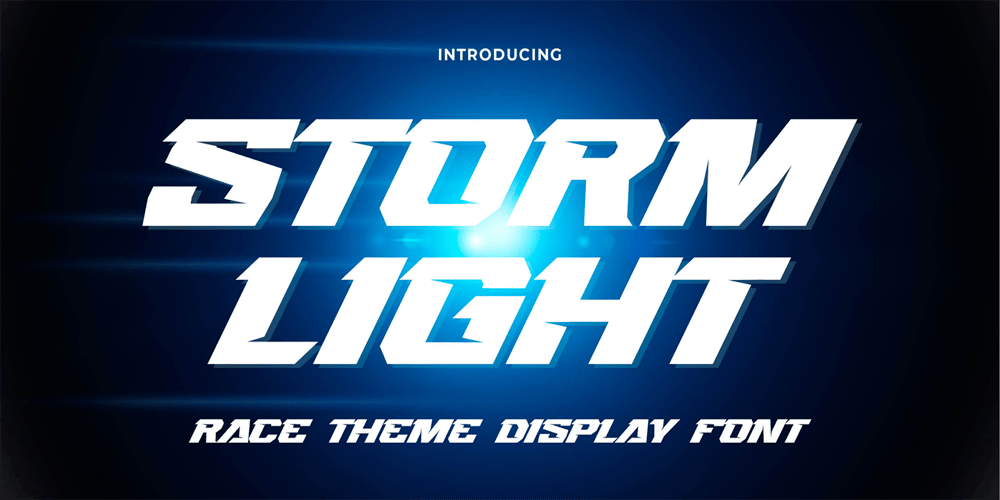
Stormlight Font Family was designed by Abdul Malik Wisnu, Anang Fibriyanto and published by Gassstype. Stormlight contains 1 styles and family package options. Here comes a New Font ,Introducing STORMLIGHT is a Race Theme Display Font.This Handmade Display Font with a stylish touch inspired by the famous minimalist logo STORMLIGHT has is perfect for the purposes of designing templates, brochures, videos, advertising branding, logos and more.That is Sport Display with strong and Sport nuances.This font is great for your next creative project such as logos, printed quotes, invitations, cards, product packaging, headers, Logotype, Letterhead, Poster, Label, and etc.Crafted manually with love and passion.